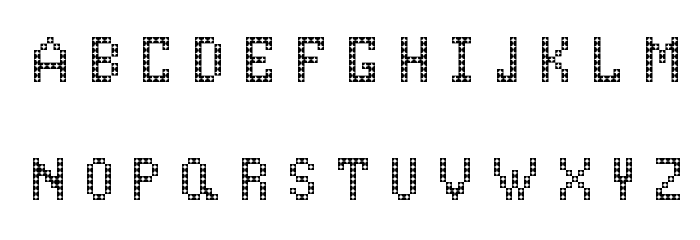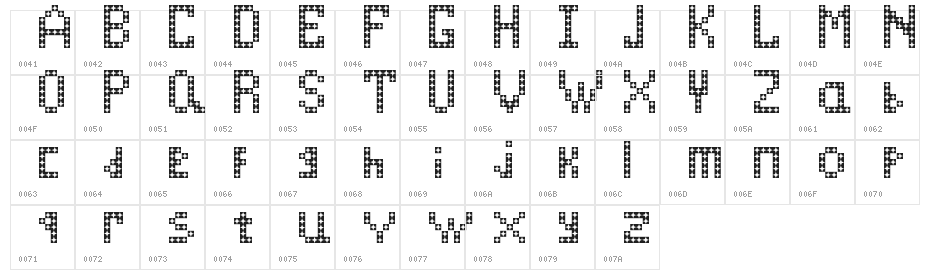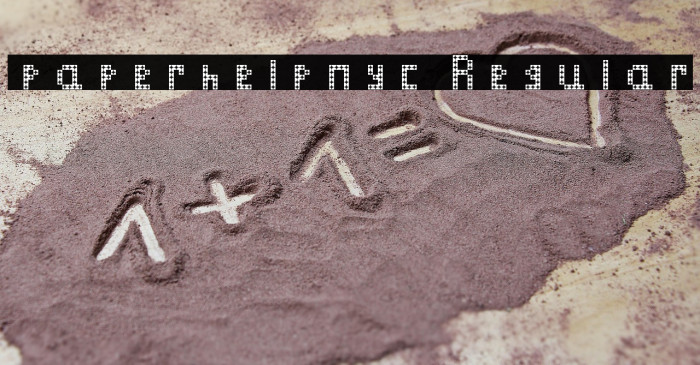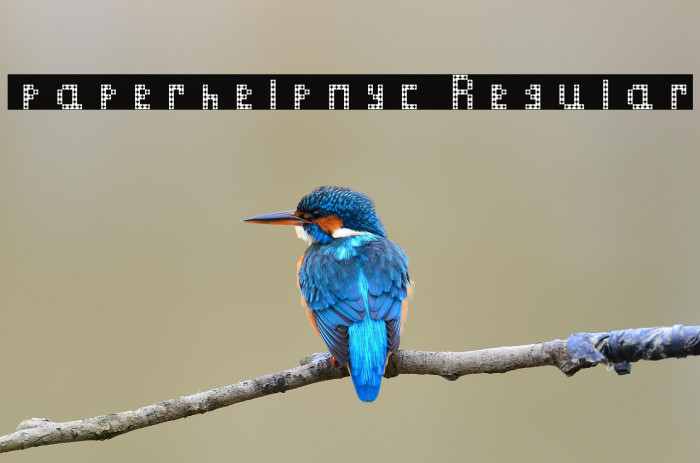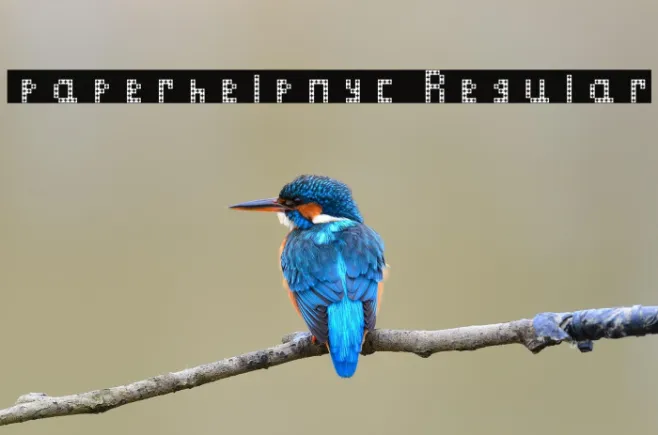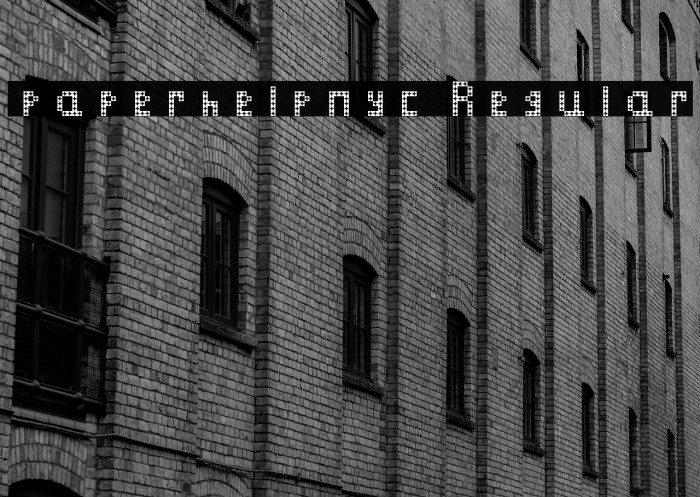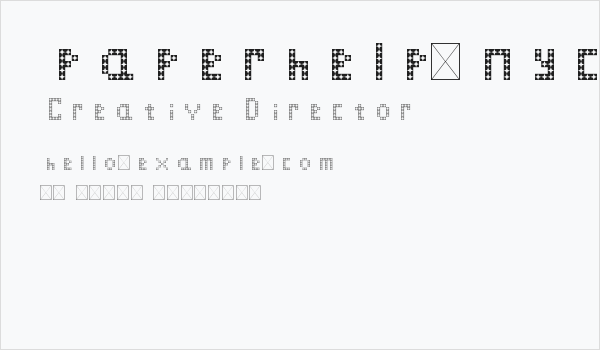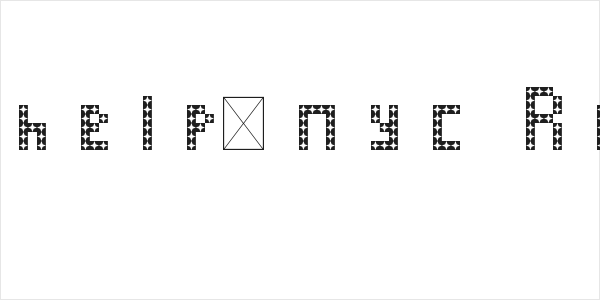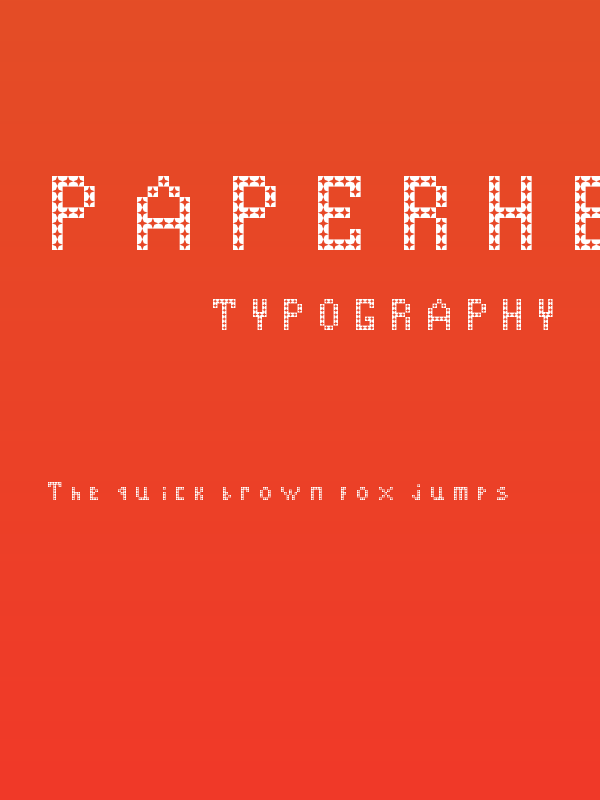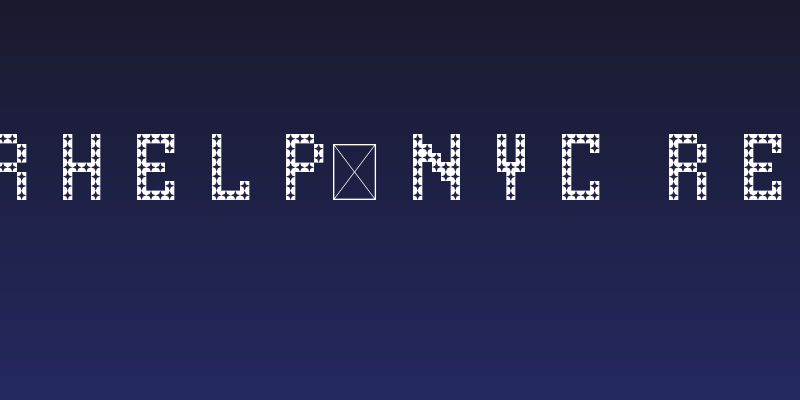
paperhelp.nyc Regular Font
paperhelp.nyc Regular Description
This font features a unique, pixelated design that resembles a grid or mosaic pattern. Each character is constructed from a series of small squares, giving it a distinct digital or retro video game aesthetic. The uppercase and lowercase letters maintain a consistent style, with clear, geometric shapes that are easy to read despite the intricate detailing. Numbers and special characters follow the same design principles, ensuring uniformity across the entire typeface. This font's playful and unconventional appearance makes it stand out, ideal for creative projects that require a touch of nostalgia or a modern twist on classic pixel art.
| Use Case | Logos, Posters, Digital Art |
| Proposed Projects | Ideal for video game design, digital art projects, retro-themed posters, and creative branding. |